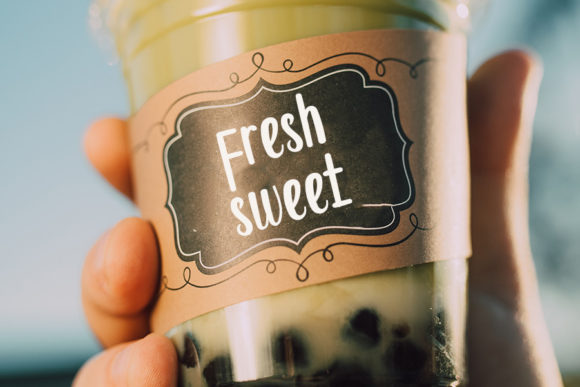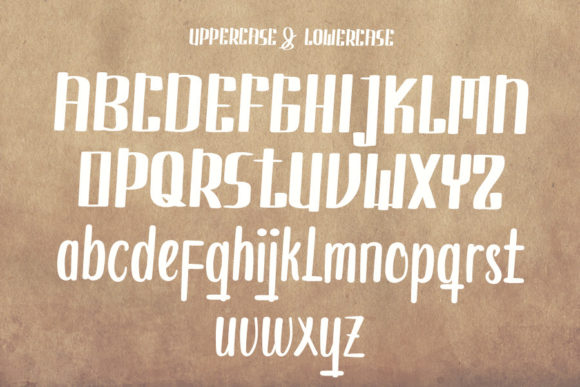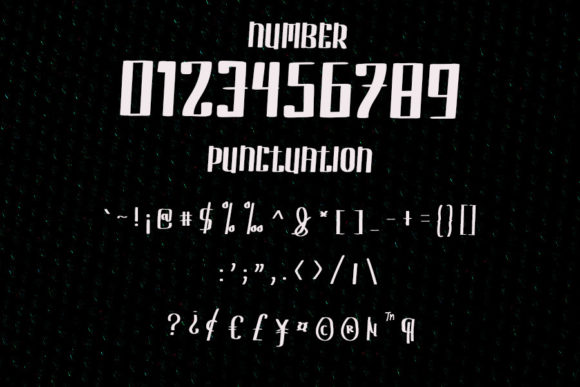
Introduction to Chocolate Shop Font
Chocolate Shop is a cool handwritten font with a modern vibe and spotless form, inspired by a classic calligraphy.
Not too thin and not too thick, balanced and varied, this font was designed to enhance the beauty of your projects .